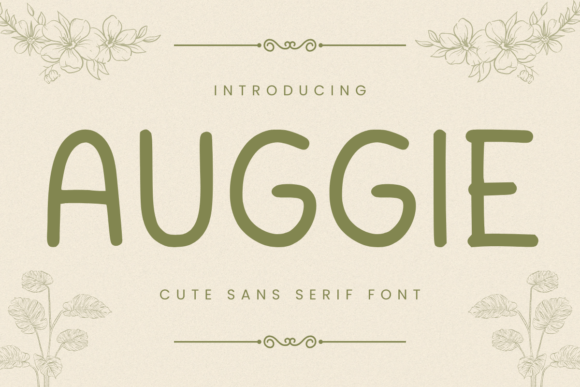
The Auggie Font: A Cute and Casual Style for Your Creative Projects
Have you ever been working on a design project, and suddenly, you’re stuck on finding the perfect font? I recall a recent experience where I was designing a set of stickers for a client’s social media campaign. The project required a font that was not only visually appealing but also conveyed a friendly and approachable tone. After scouring through my font library, I stumbled upon the Auggie font, and it instantly became the perfect fit.
The Auggie font is a casual, cute font that’s perfect for a variety of creative projects, including quotes, stickers, mugs, tumblers, sublimation, t-shirts, and more! In this article, I’ll share my honest review of the Auggie font, provide a practical guide on how to use it, and explore similar fonts that you might enjoy.
- ✅ The Auggie font has a unique, hand-crafted feel that’s perfect for designs that require a personal touch.
- ✅ It’s highly versatile and can be used for a wide range of projects, from digital designs to print materials.
- ✅ The font is easy to read, even at smaller sizes, making it perfect for quotes, captions, and other text-based designs.
- ✅ The Auggie font comes with a range of OpenType features, including glyphs and stylistic alternates, which allow for endless creative possibilities.
- ⚠️ Some users may find that the font is a bit too casual or playful for certain projects, such as formal events or corporate branding.
- ⚠️ The Auggie font may not be the best choice for very long blocks of text, as it’s designed to be attention-grabbing and conversational.
The Story Behind Auggie: Designer Inspiration
The Auggie font was designed with the goal of creating a friendly and approachable font that’s perfect for everyday designs. The designer drew inspiration from classic handwritten fonts, with a modern twist. The result is a font that’s both cute and casual, with a unique personality that’s hard to find in other fonts.
Q: What is the Auggie font best used for?
A: The Auggie font is best used for designs that require a friendly and approachable tone, such as quotes, stickers, mugs, tumblers, sublimation, t-shirts, and more!
Q: Is the Auggie font easy to read?
A: Yes, the Auggie font is designed to be easy to read, even at smaller sizes, making it perfect for quotes, captions, and other text-based designs.